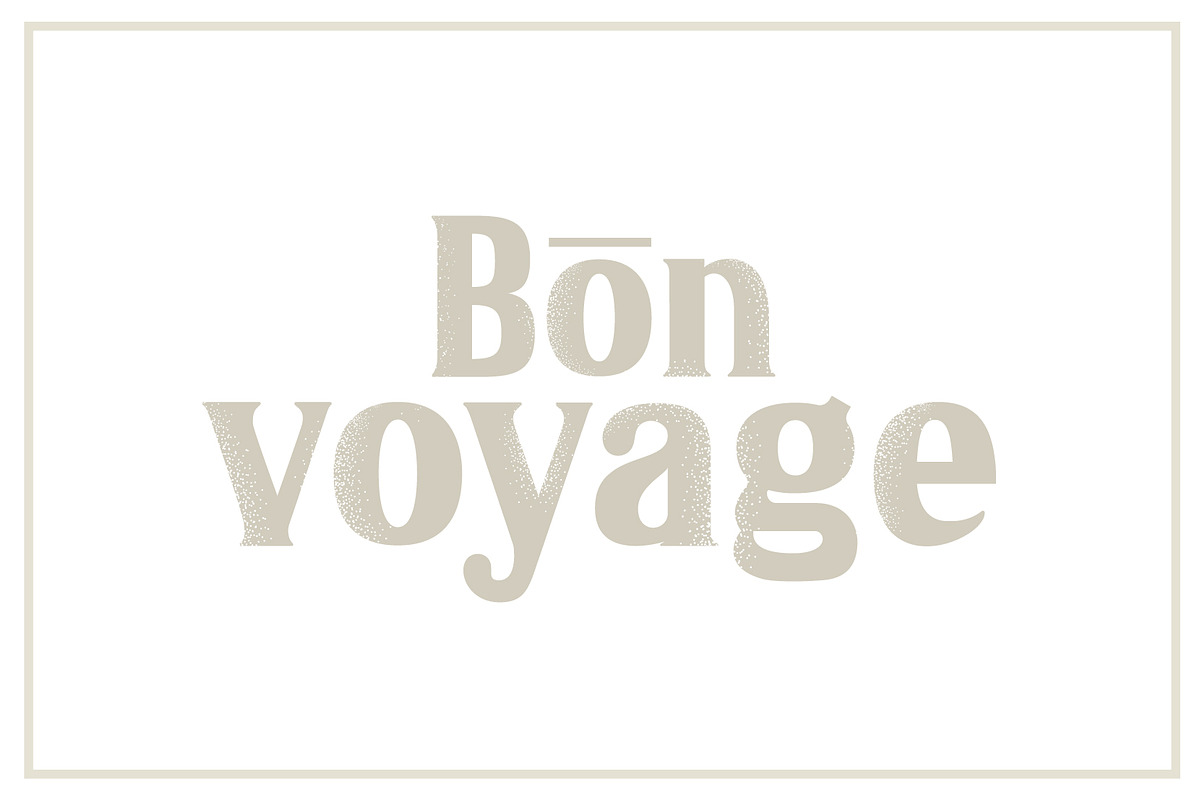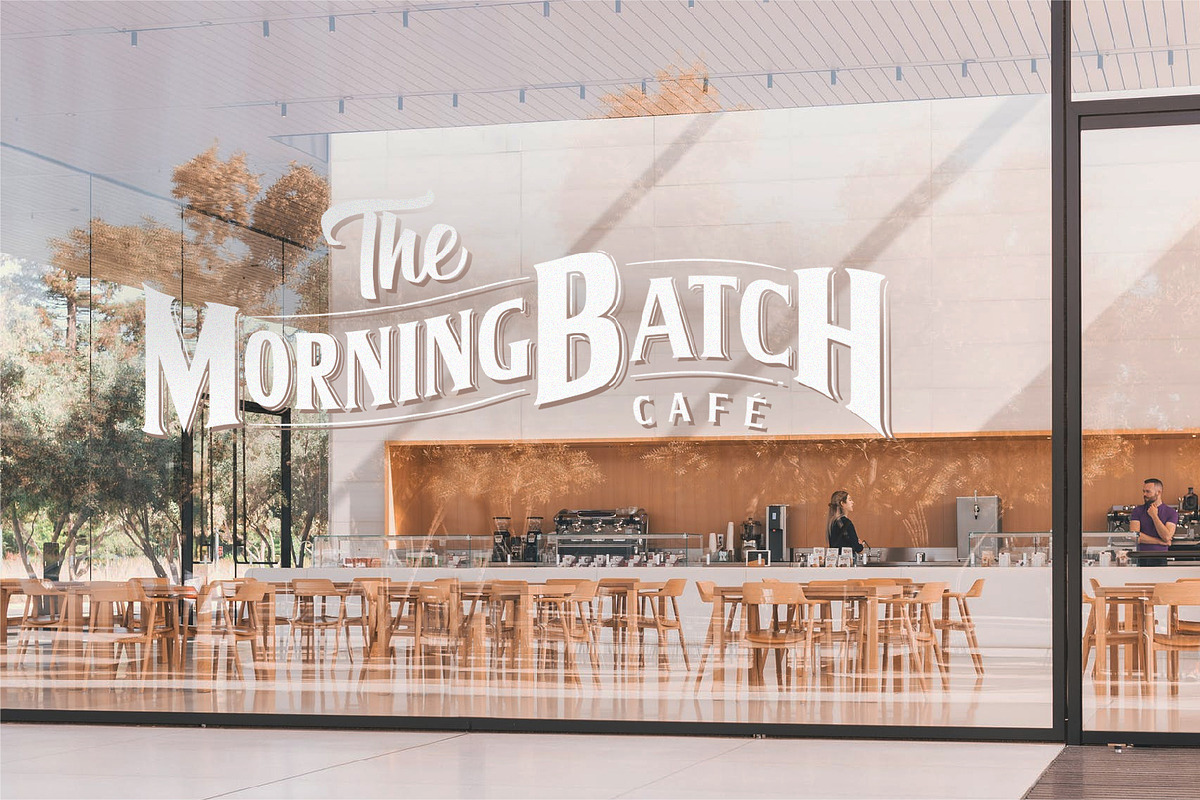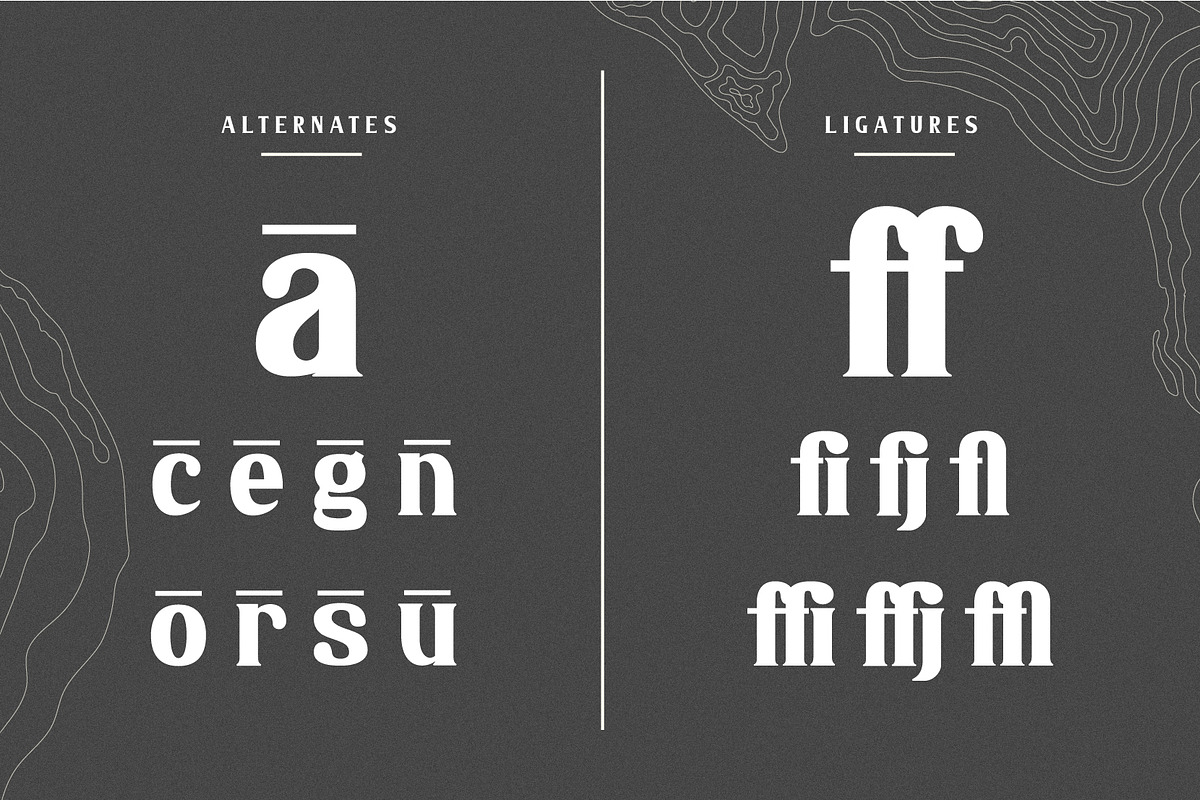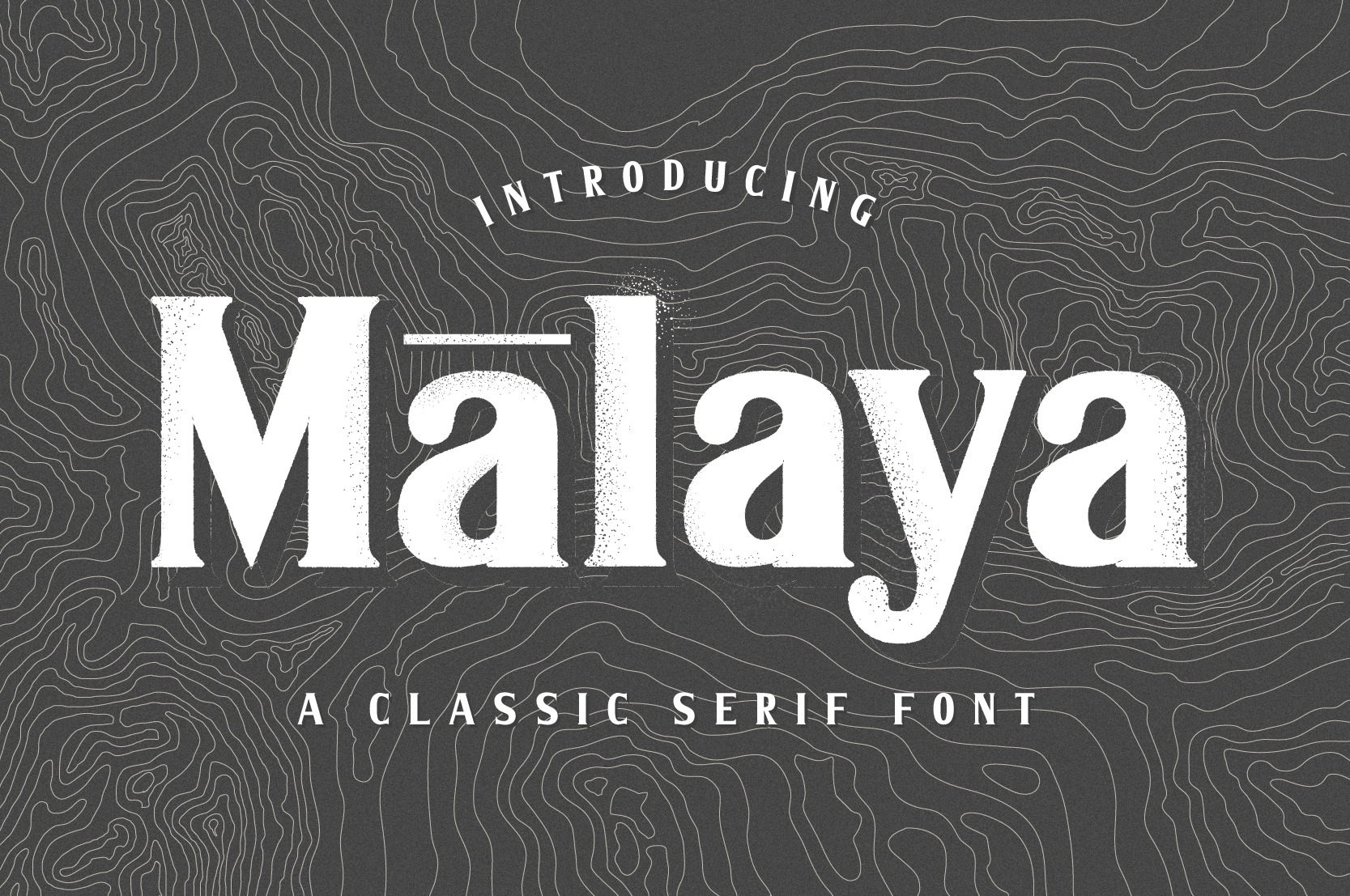
Malaya - A Classic Serif Font
Malaya, just like the Malay peninsula is rich in culture, history and style. A classic handcrafted font that only compliments your classic design, but your very own headlines, fashion and even your own cafe at a corner of an old street.
- Malaya Serif Font
- A handcrafted typeface
- A full set of uppercase, lowercase, numbers, symbols and glyphs!
- Unique ligatures to style your headlines!